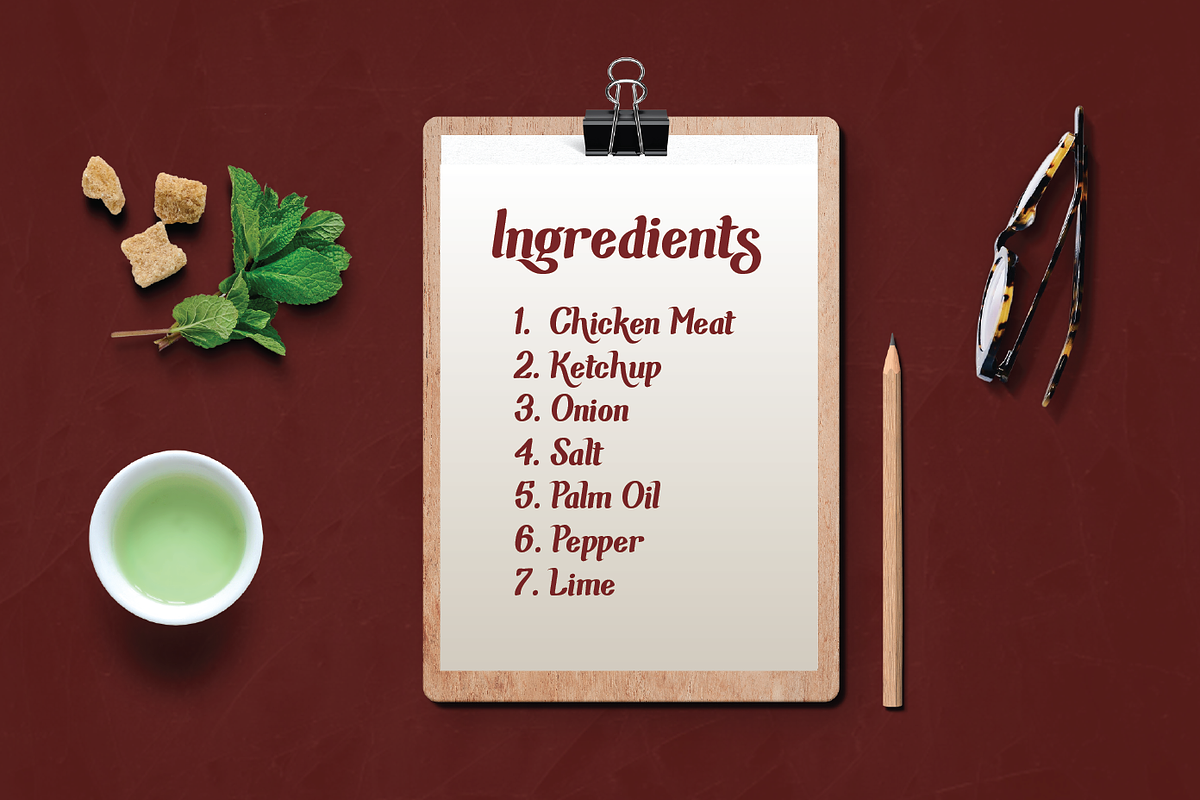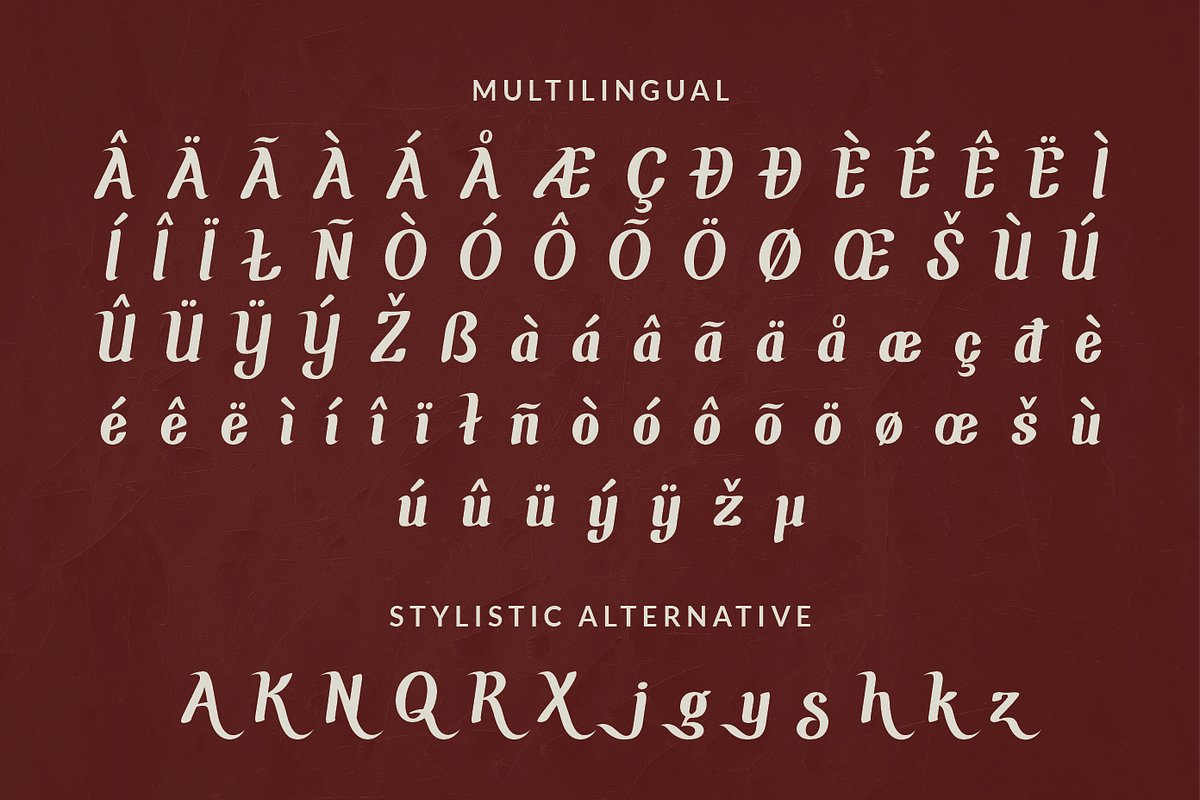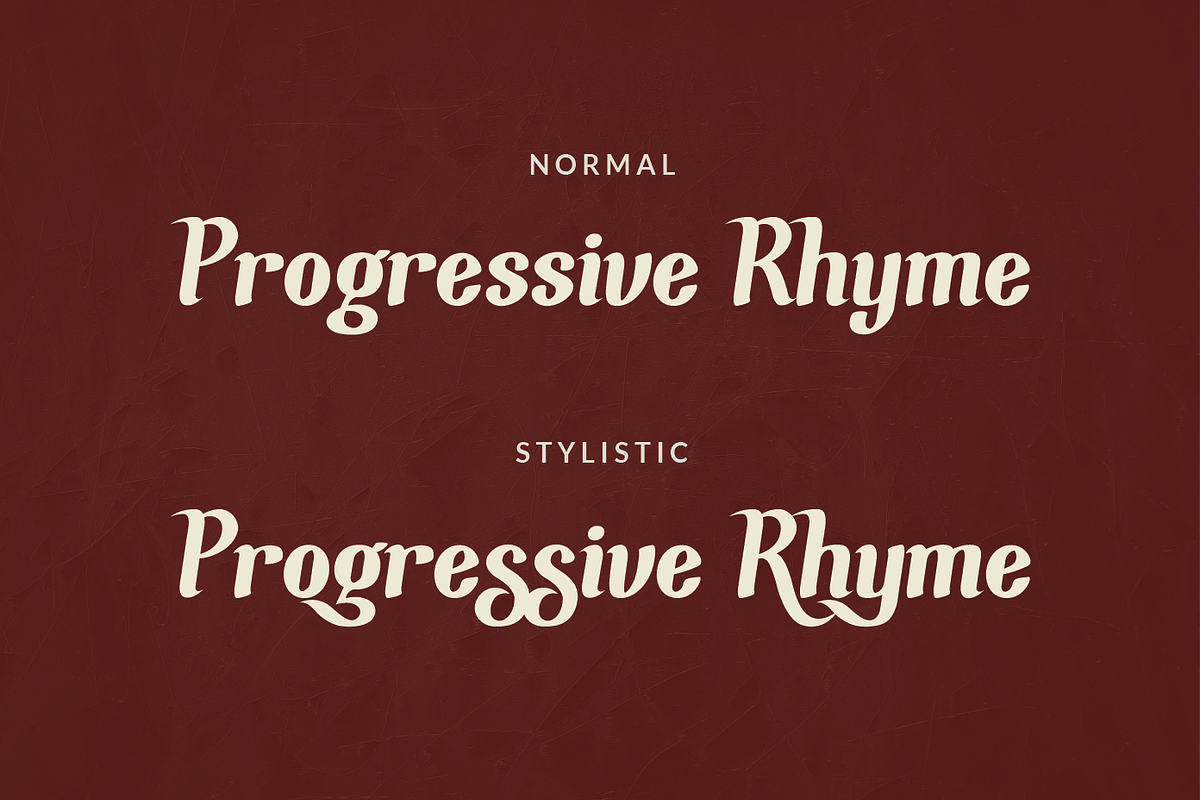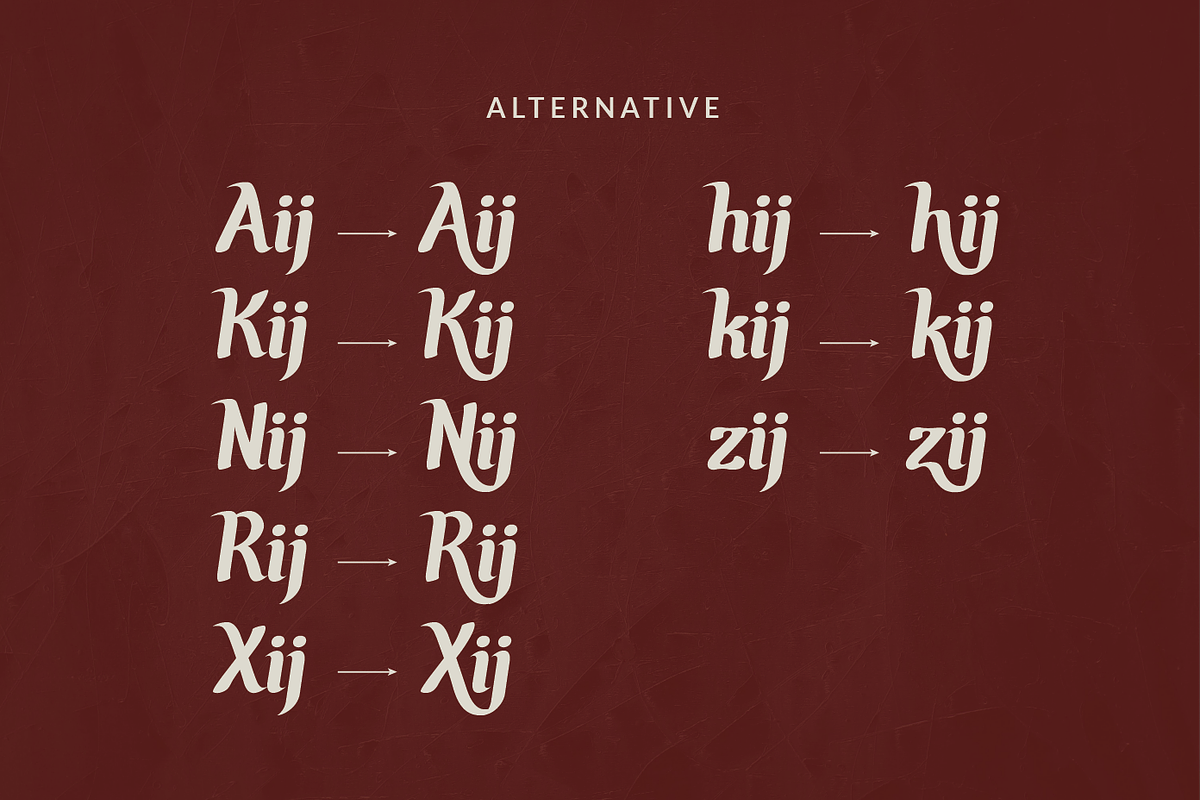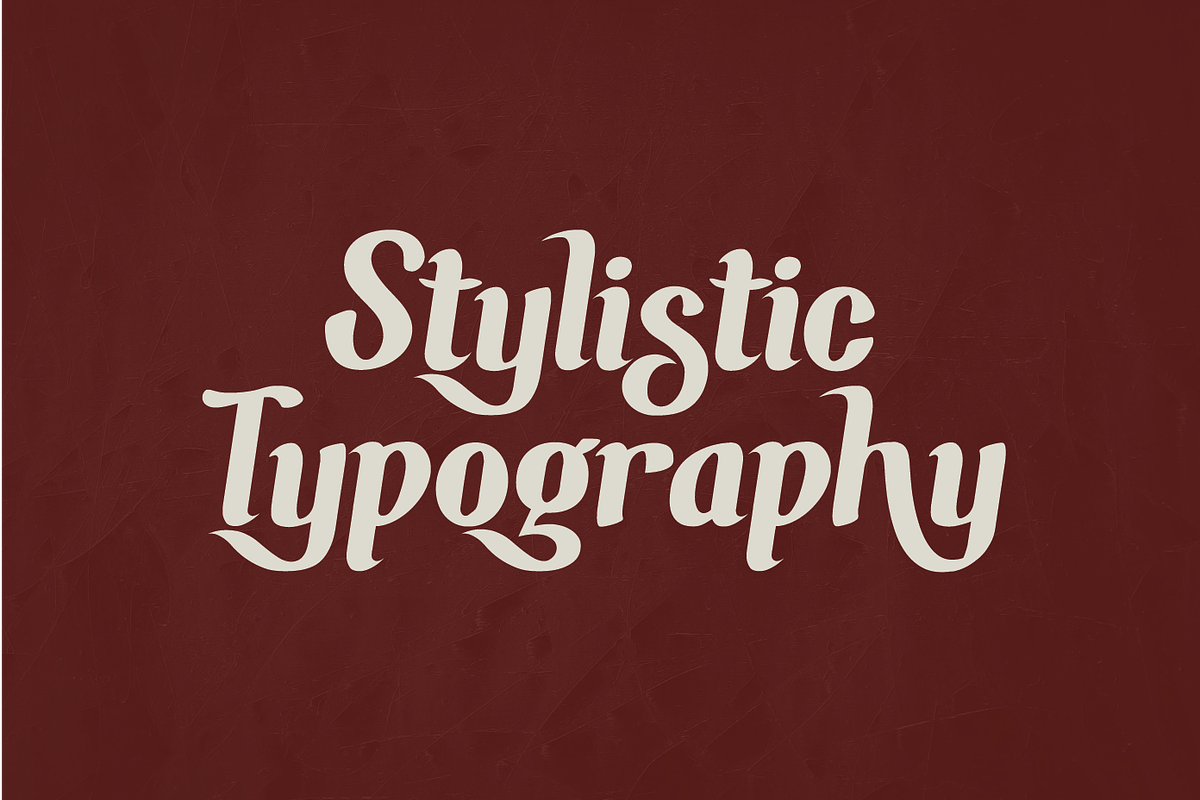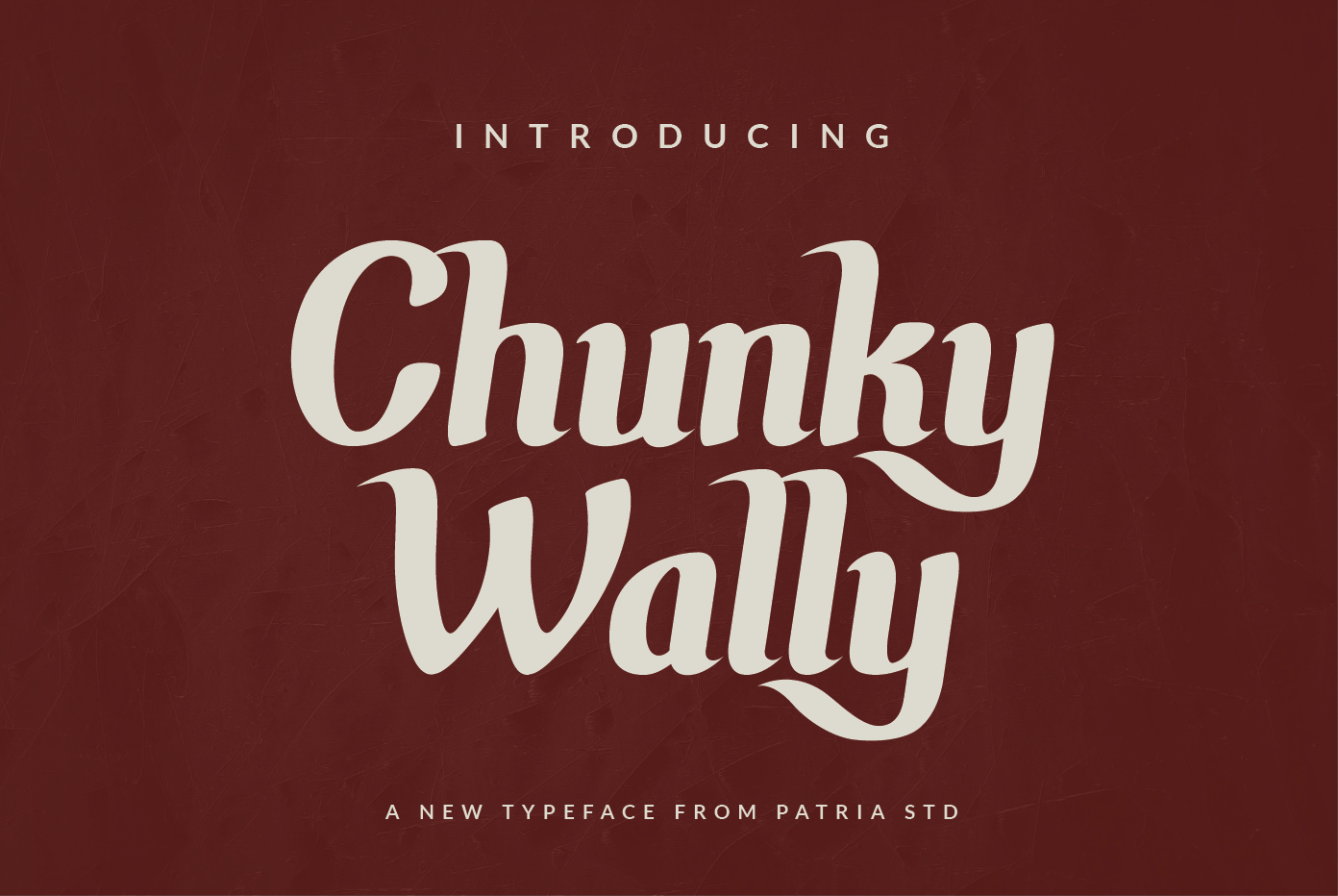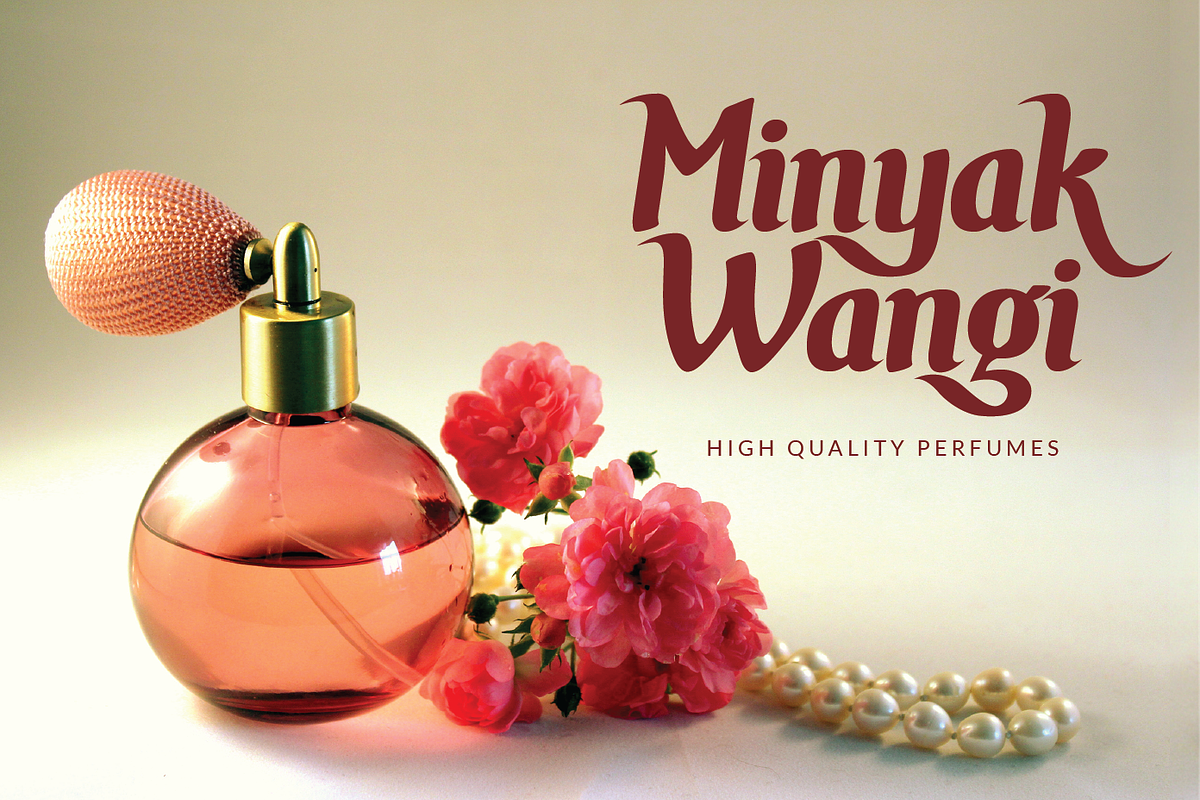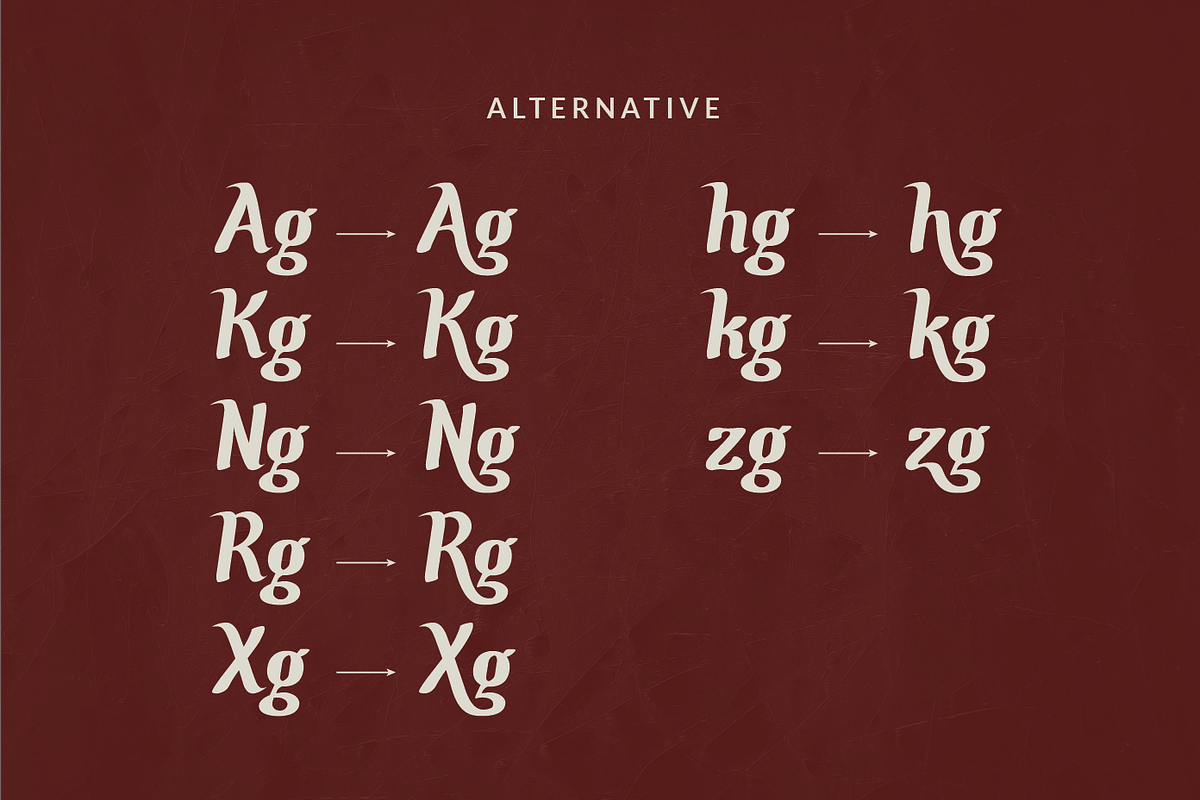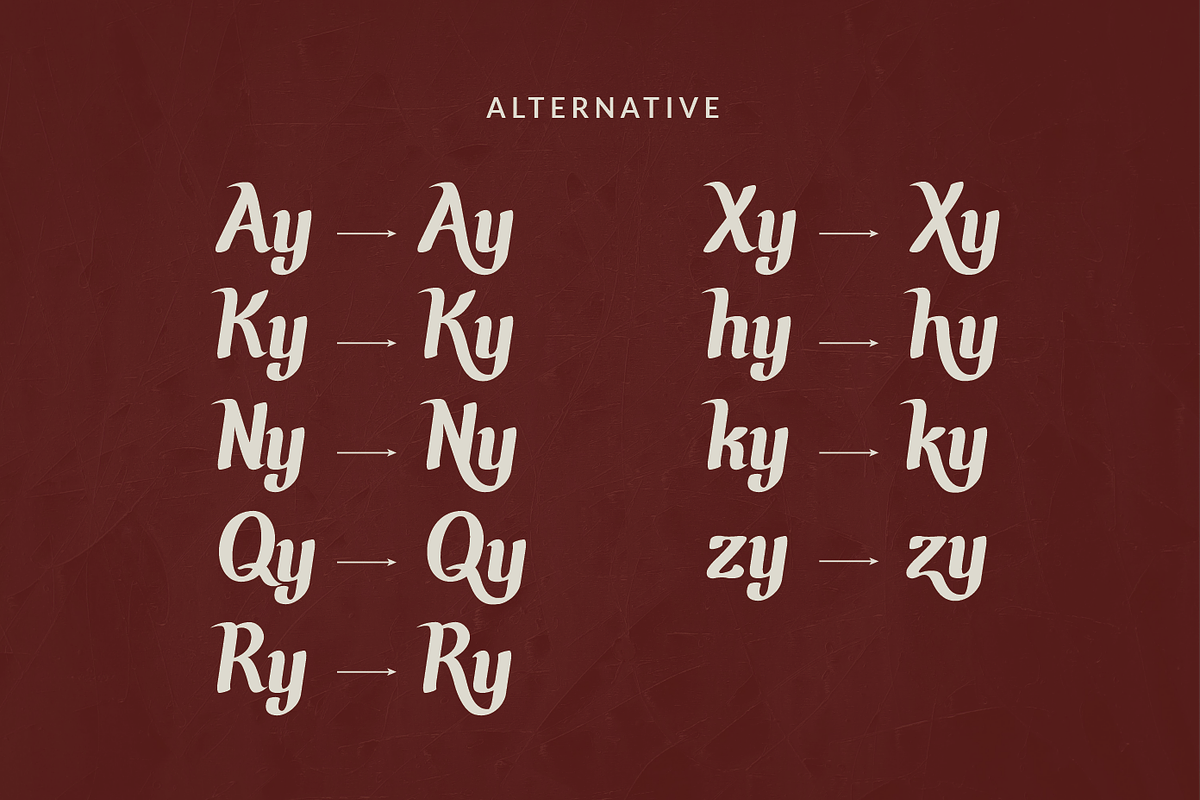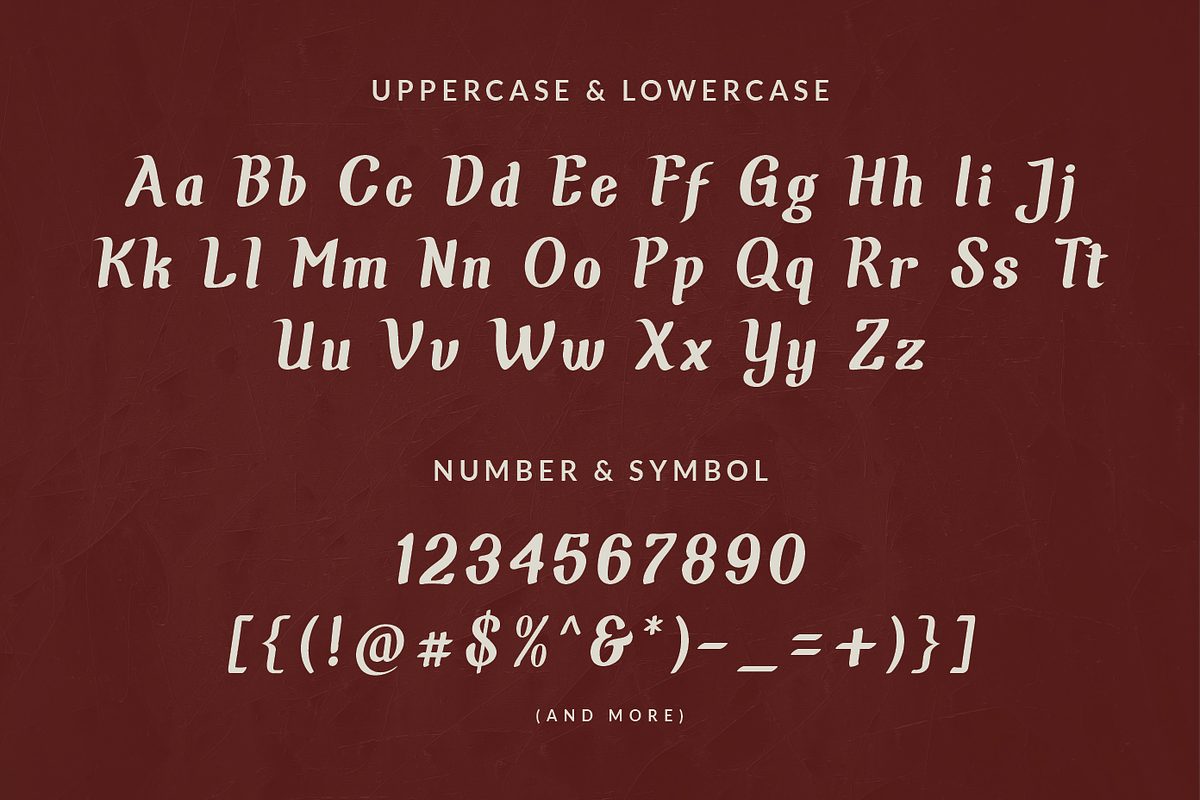
Chunky Wally Font
This is my new font Chunky Wally. Vintage serif font with beautiful alternate characters to support your brand/project.
Chunky Wally is perfect for projects such as logos & branding, invitation, stationery, wedding designs, social media posts, advertisements, printed quotes, product packaging, product designs, label, photography, watermark, special events or anything.